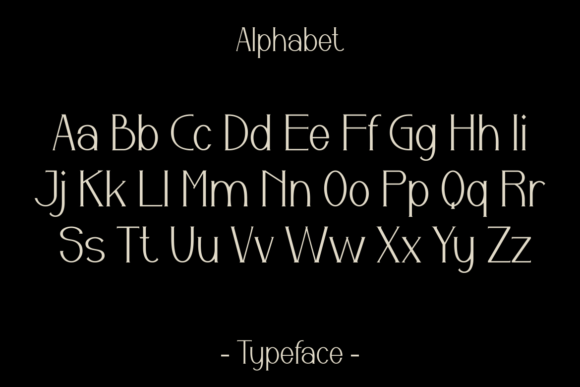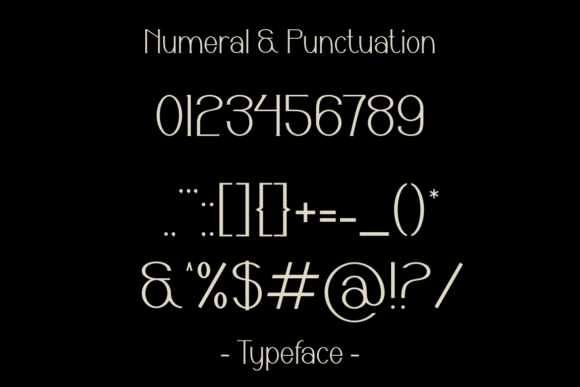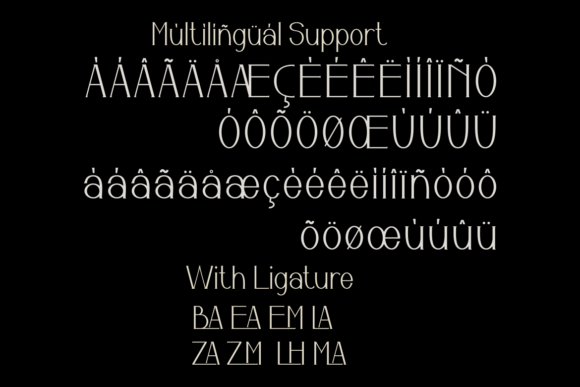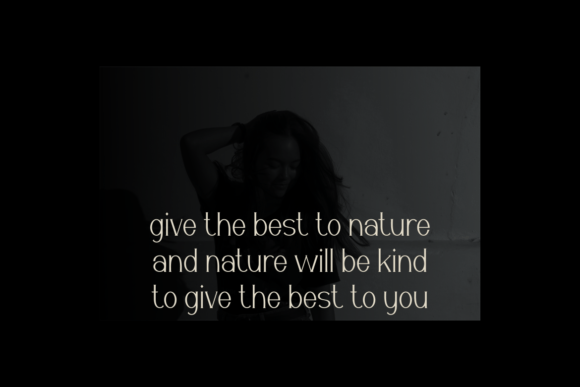
Introducing Galoyskie Font: The Modern Display Font for Bold Designs
In the world of typography, a font can make or break a design. That’s why we’re excited to introduce Galoyskie Font, a modern display font that’s bold, authentic, and versatile. Whether you’re a designer, craftsperson, or simply someone who appreciates great typography, Galoyskie Font is sure to impress.
What is Galoyskie Font?
Galoyskie Font is a carefully crafted display font that’s perfect for any branding project that requires a bold and eye-catching look. Its unique design makes it stand out in a wide range of contexts, from logo design and template creation to esport and more. With its modern aesthetic, Galoyskie Font is ideal for designers who want to add a touch of sophistication and elegance to their work.
Key Features of Galoyskie Font
So, what makes Galoyskie Font so special? Here are some of its key features:
- Bold and Authentic Design: Galoyskie Font boasts a bold and authentic design that’s sure to grab attention.
- Multilingual Support: The font supports multiple languages, making it perfect for global brands and designers who work with clients from diverse linguistic backgrounds.
- Uppercase and Lowercase Letters: The font includes both uppercase and lowercase letters, providing flexibility and versatility in design.
- Ligature: Galoyskie Font also features ligatures, which add a touch of elegance and sophistication to any design.
Use Cases for Galoyskie Font
Galoyskie Font is an incredibly versatile font that can be used in a variety of design projects, including:
- Logo Design: Create a bold and memorable logo that stands out from the competition.
- Template Design: Use Galoyskie Font to create stunning templates for presentations, brochures, and more.
- Esport Design: Add a touch of modernity and sophistication to your esport designs, including jerseys, posters, and social media graphics.
- Branding and Identity: Establish a strong brand identity with Galoyskie Font, perfect for creating business cards, letterheads, and packaging designs.
Why Choose Galoyskie Font?
- Unique Design: Galoyskie Font boasts a unique design that’s sure to set your designs apart from the competition.
- High-Quality: The font is crafted with attention to detail, ensuring a high-quality design that’s perfect for professional applications.